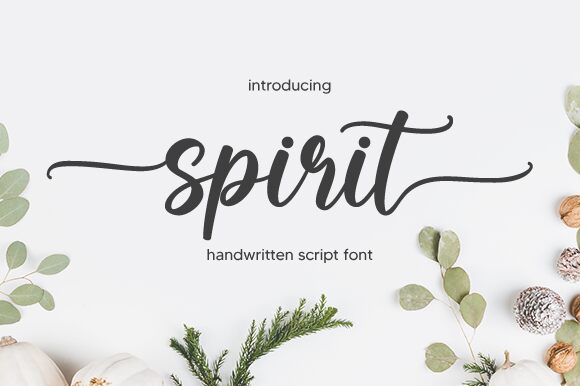
Spirit
Spirit is a delightful handwritten font designed by Aldi Raya Pradipta. It has an upbeat, light weight style perfect for crafting logos, posters, social media posts and more! Its unique style makes it an ideal choice for creative projects like blog designs and scrapbooking.